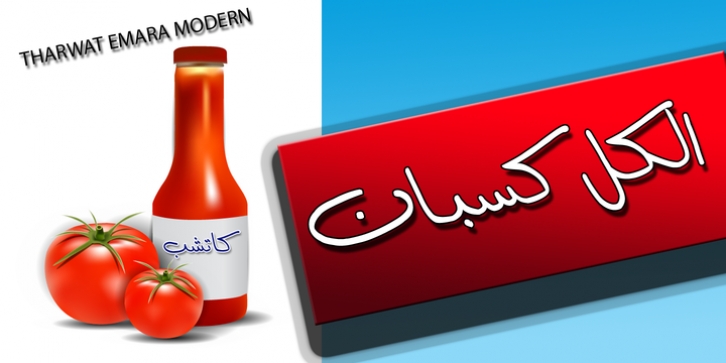
MODERN downloadDesigner: Tharwat Mohamed Emara
Publisher: Tharwat Emara
Its one  of the modern Arabic fonts, a spontaneous free line characterized by beauty and speed of reading. To be used in advertisements, writing titles, magazines, cartoons, films, serials, comics and plays.